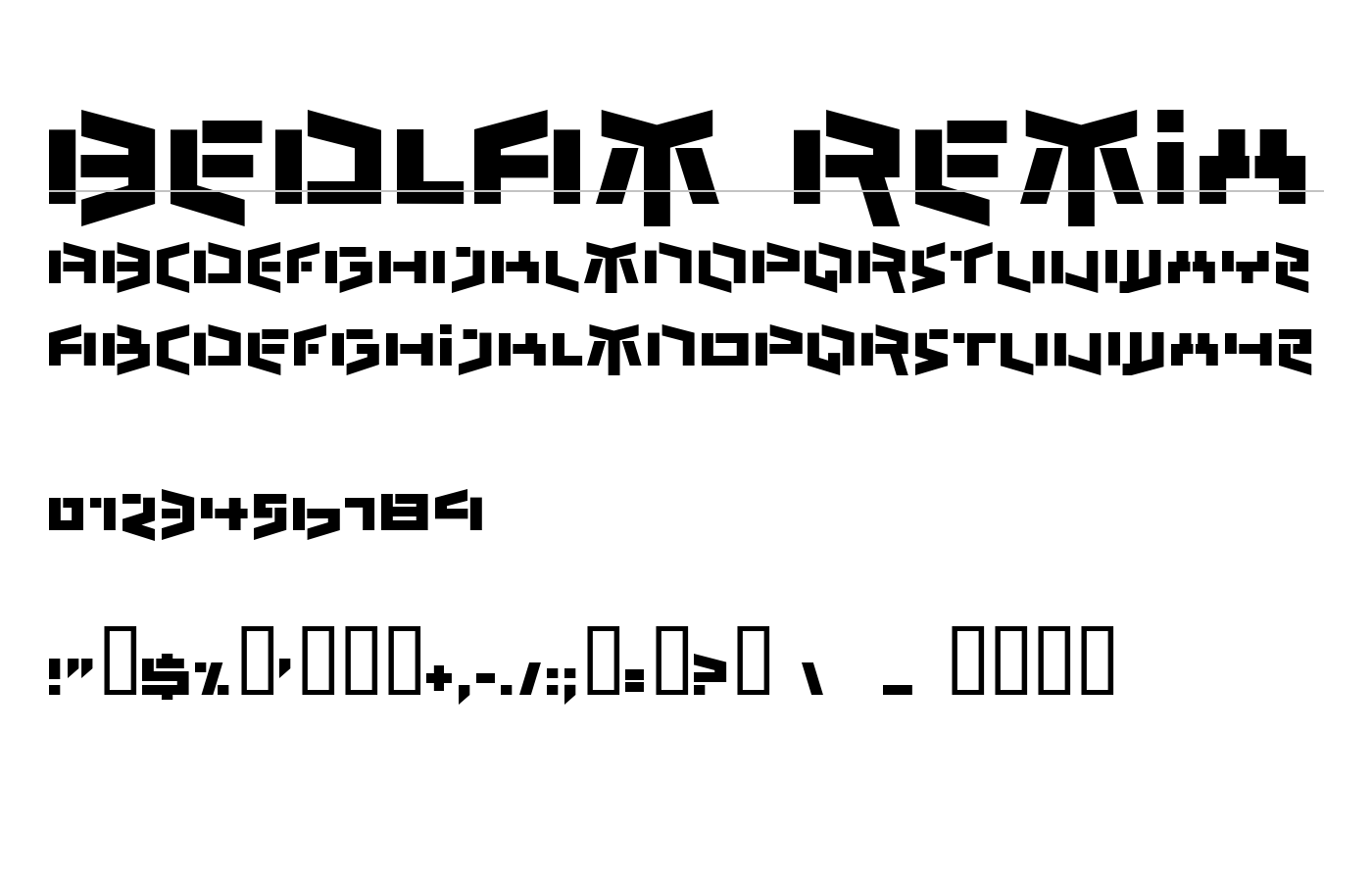
Bedlam Remix is a bold, geometric display font with a futuristic and edgy vibe, featuring sharp angles and irregular shapes that create a dynamic, almost abstract look. Its heavy weight and condensed structure make it ideal for eye-catching headlines, logos, and graphic projects where a unique, modern impression is desired. This font is perfect for brands or designs seeking to convey innovation, energy, and an unconventional style.
Bedlam Remix Font
About Bedlam Remix Font